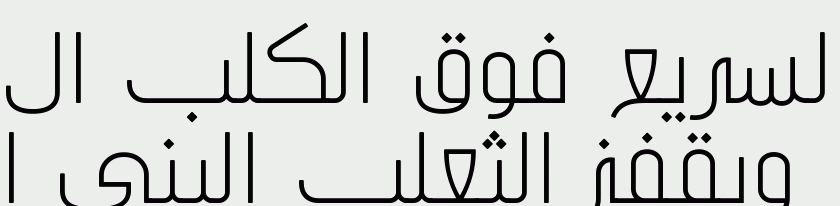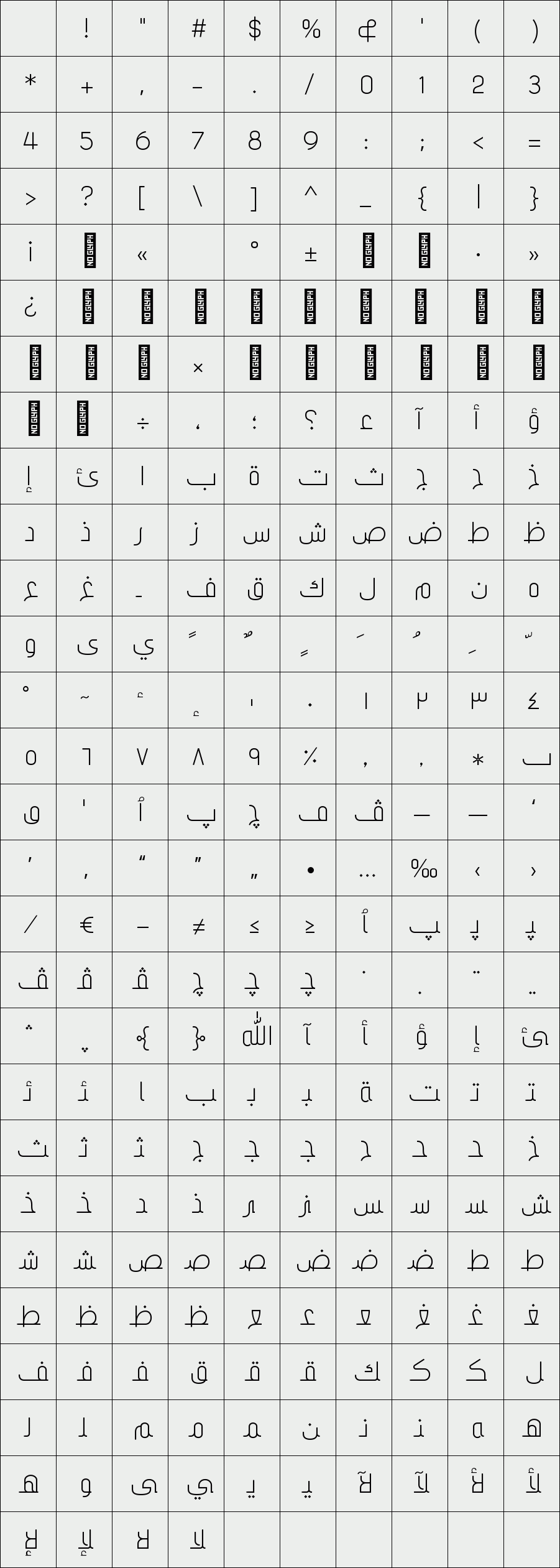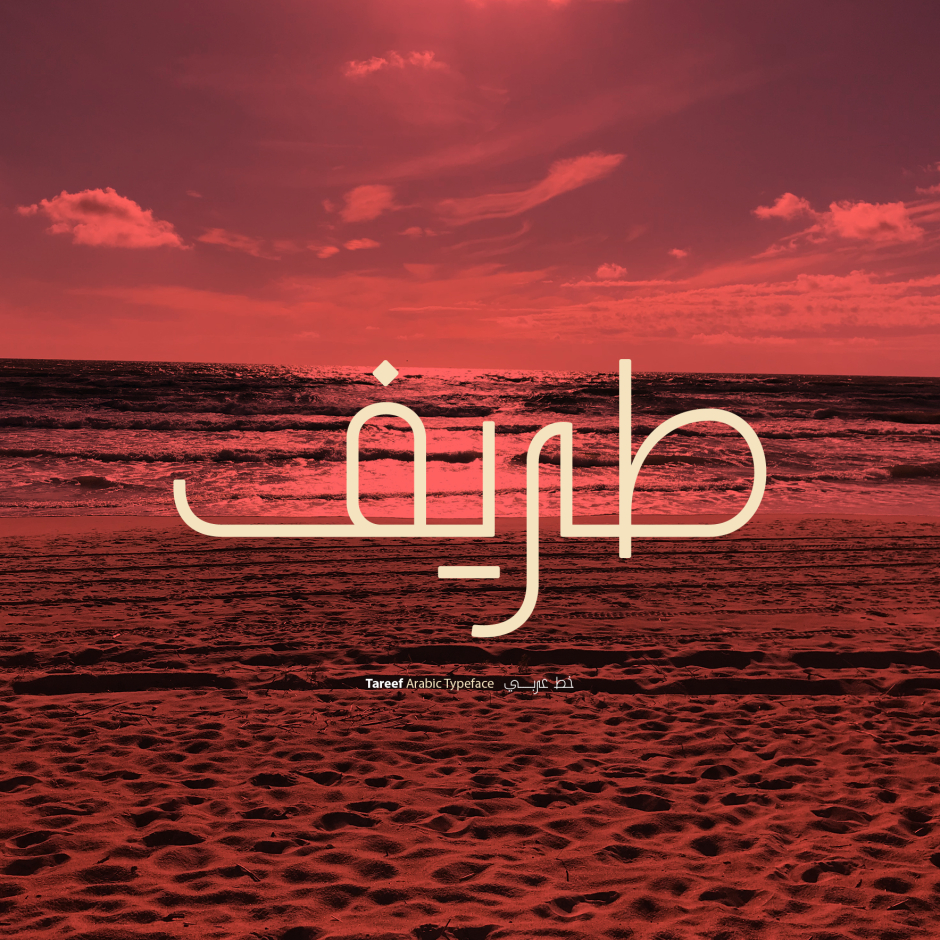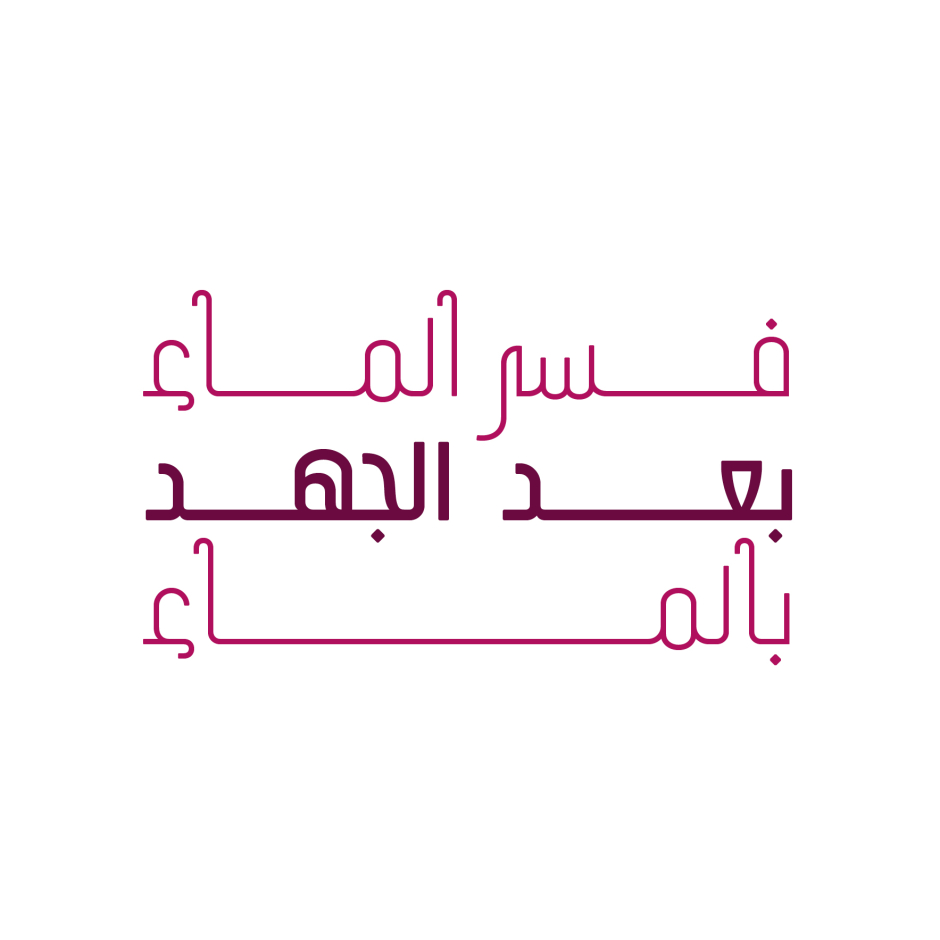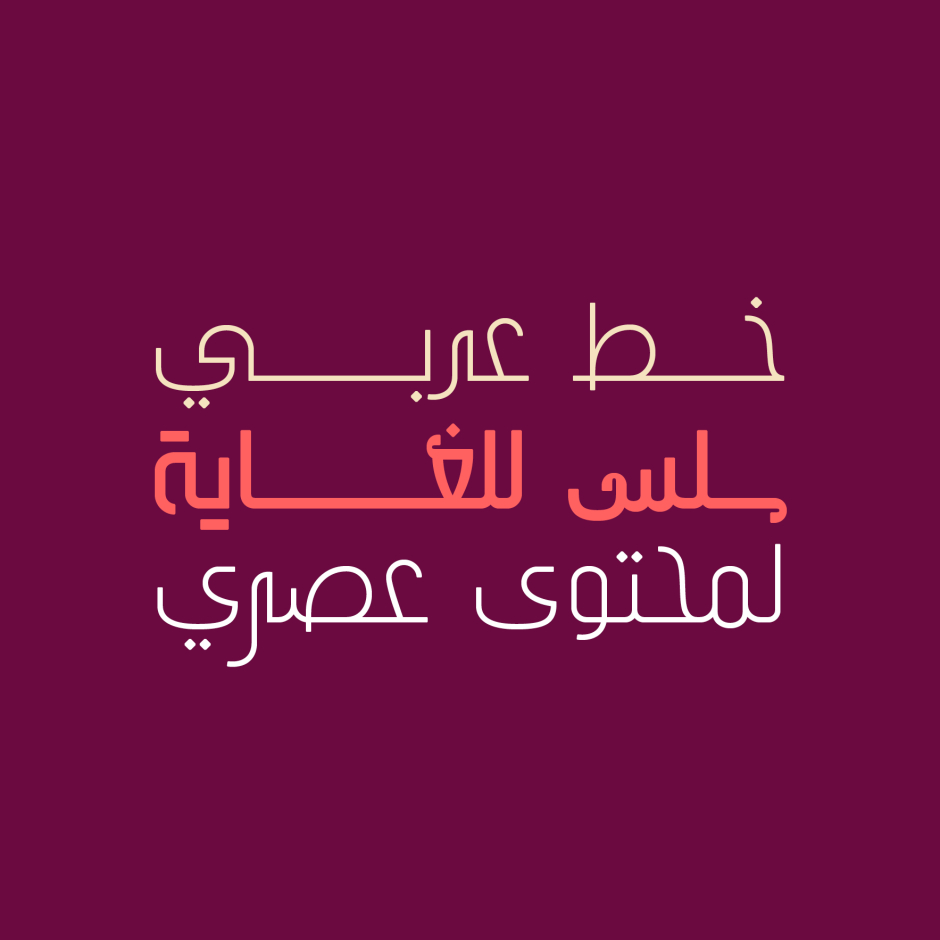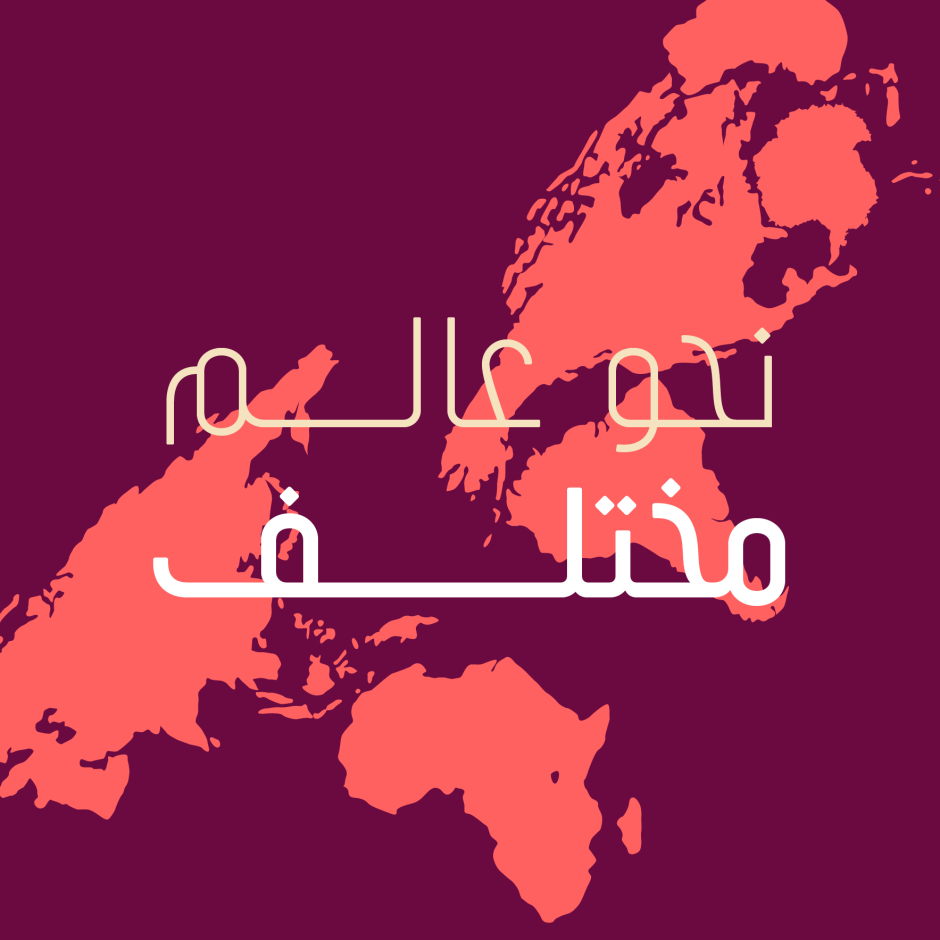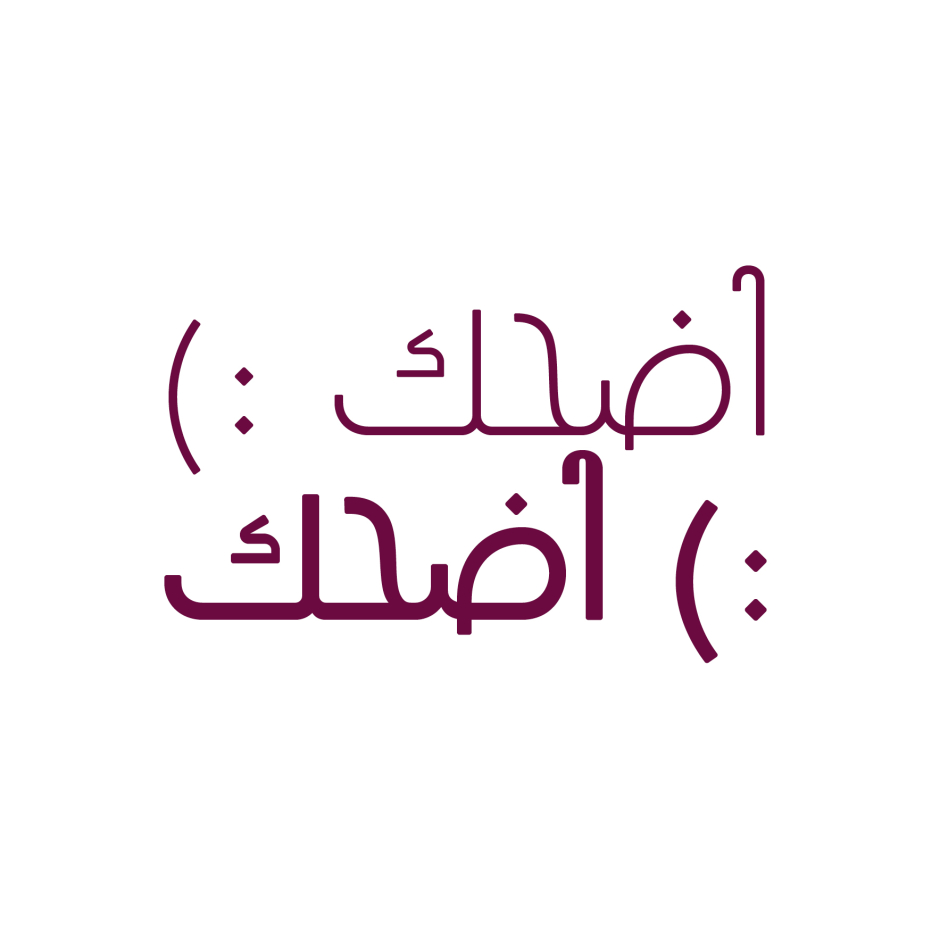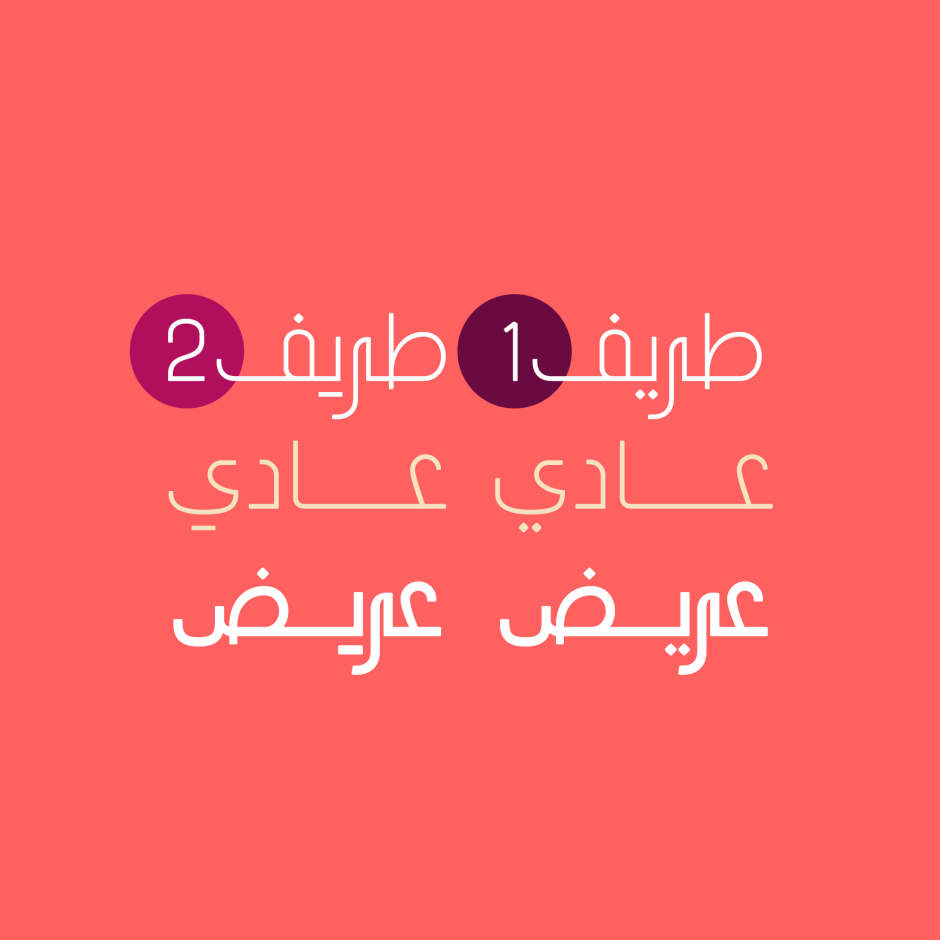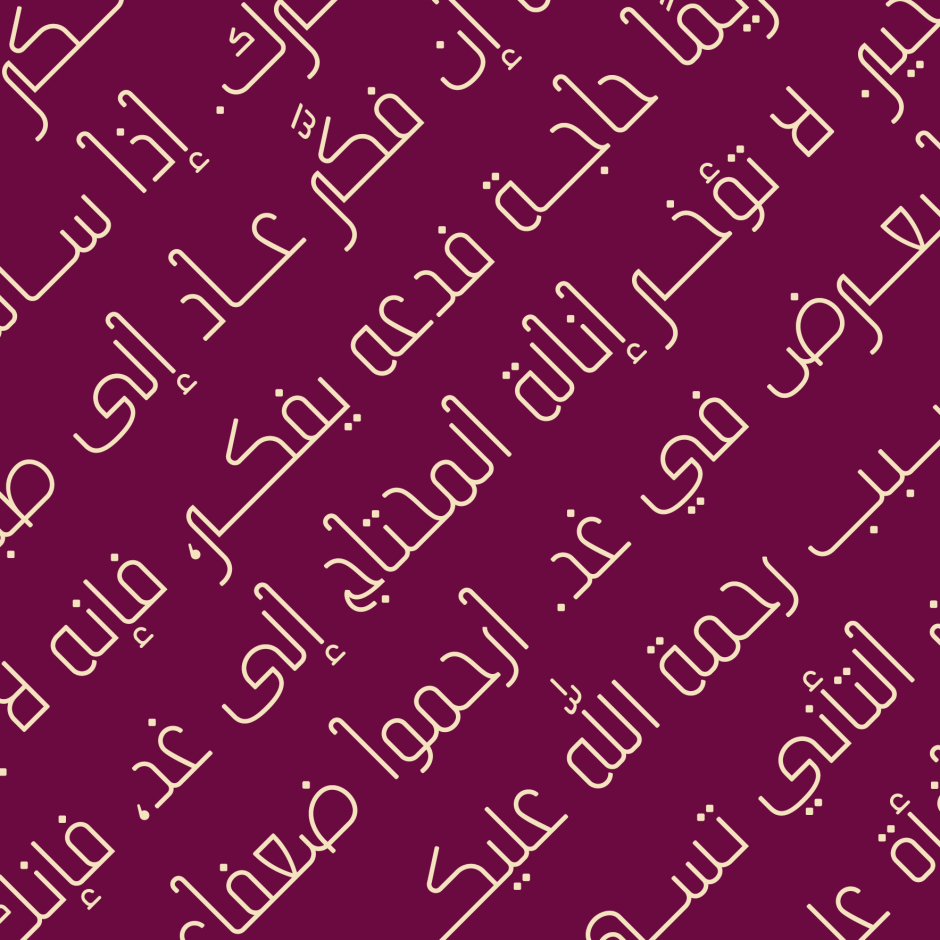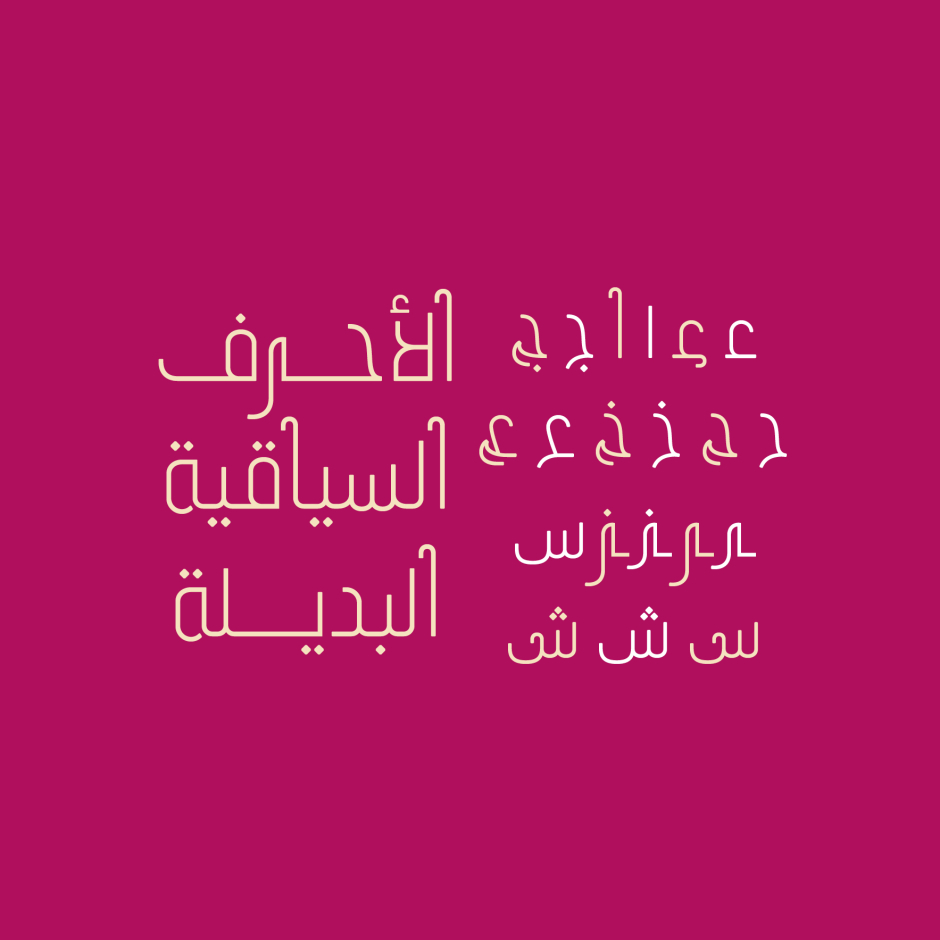
Tareef
/ Tareef Style 1-Regular
Tareef (which is the Arabic word for Quaint) is an Arabic typeface that features modern letterform design. It suits all modern applications including web design, print and mobile applications. Tareef typeface consists of two font styles in two weights (regular and bold). The font family also include an additional stylistic set for creative display purposes.